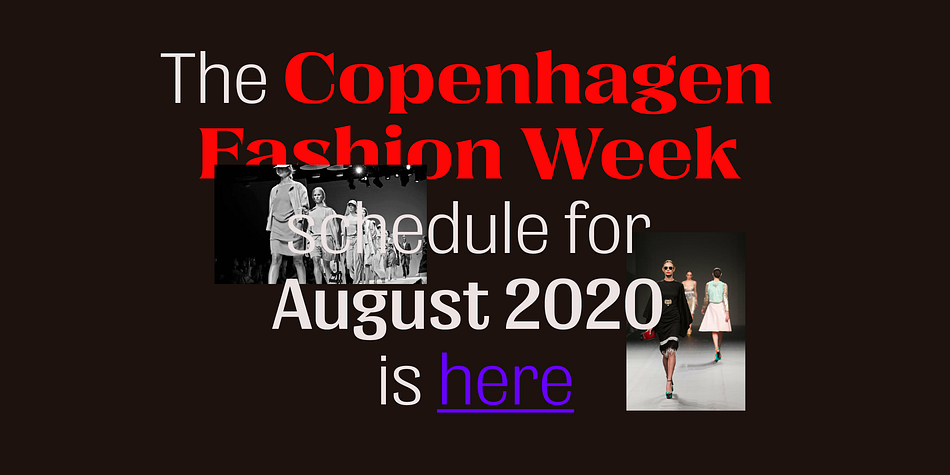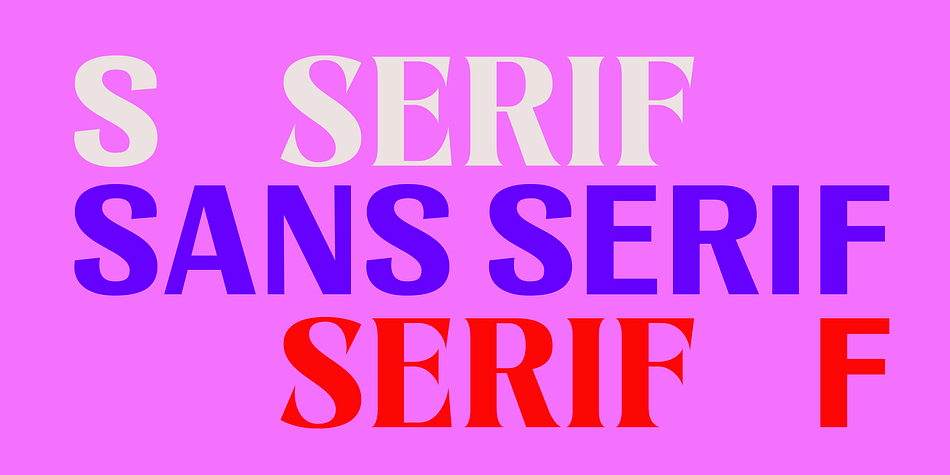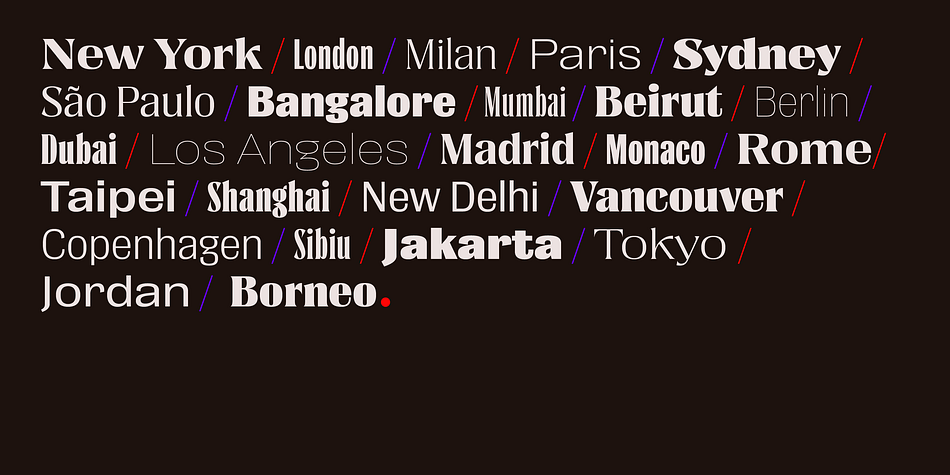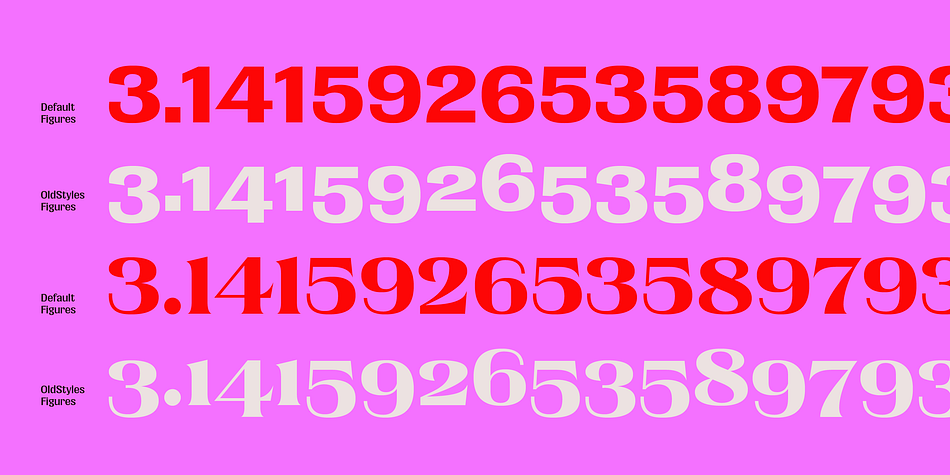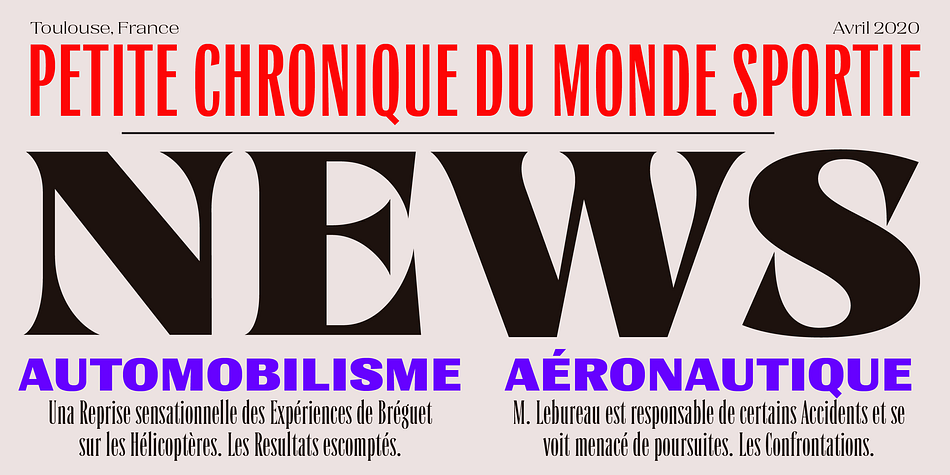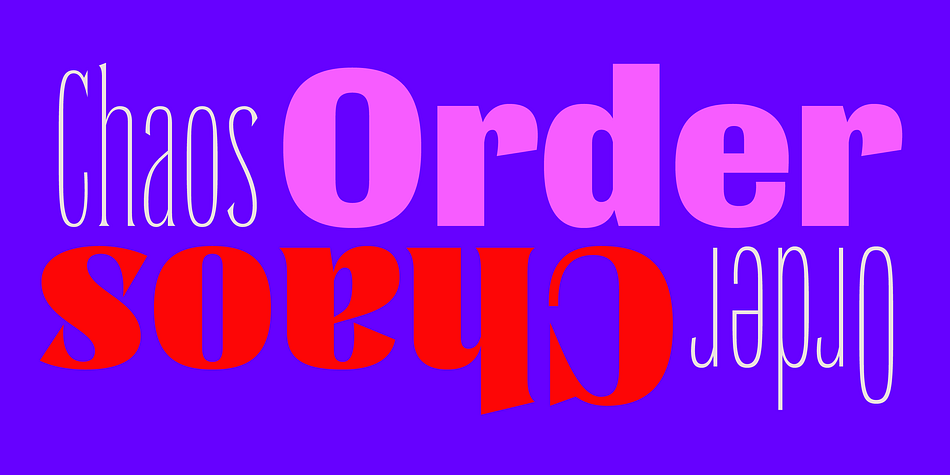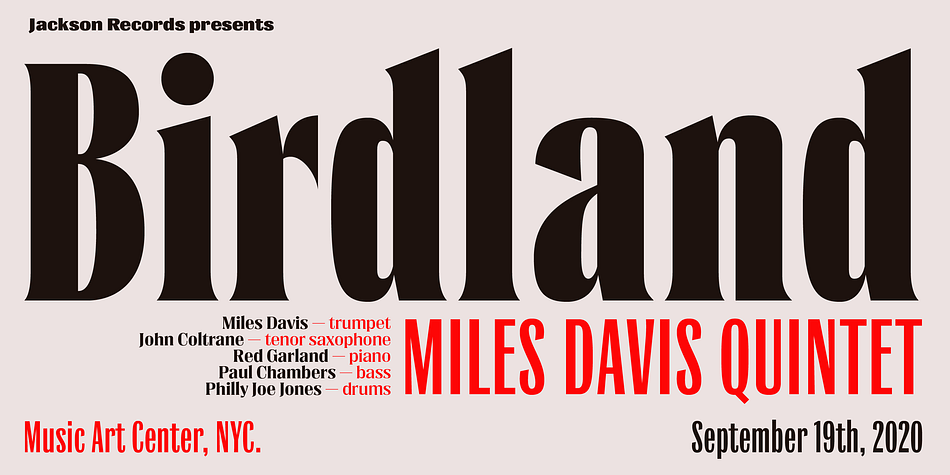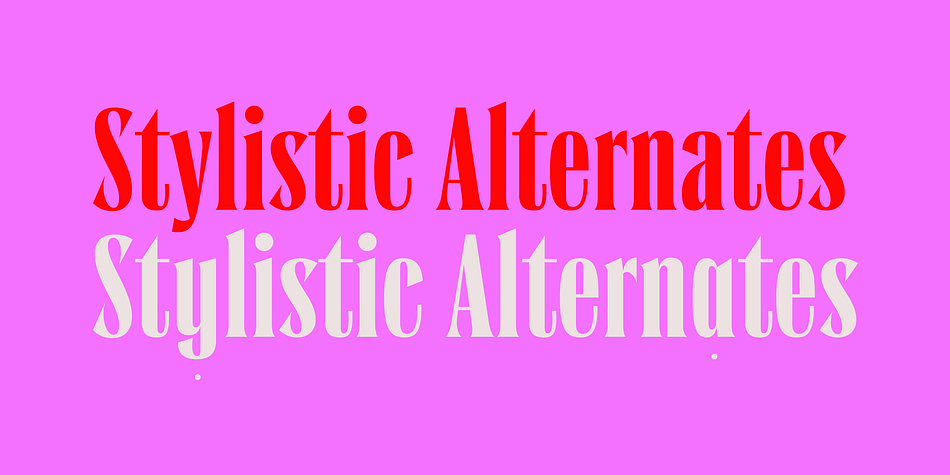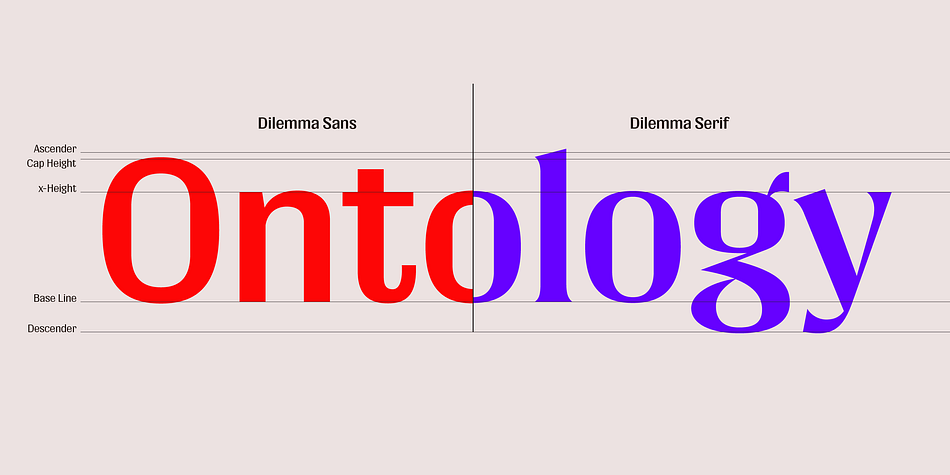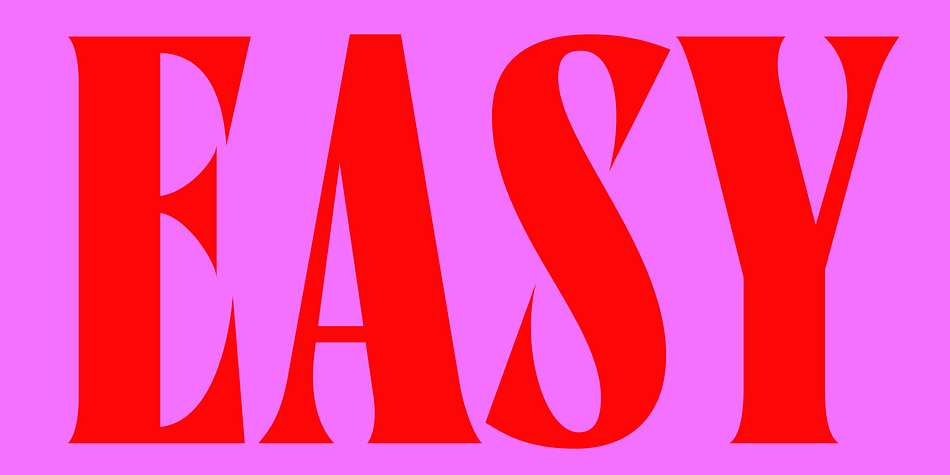
Designed by Alejandro Paul, Dilemma is a sans serif and serif font family. This typeface has forty-four styles and was published by Sudtipos.
Dilemma is a sans/sans serif type system with 42 styles; it is inspired by the anonymous Polyphème, Cyclopéen and Extra Condensé designs from the early 1900s at the Peignot Fonderie.
From these initial points of reference, Sudtipos went further and reimagined these projects for an actual use by blending them into a unique and complex type system. Dilemma is defined as ‘a situation in which a difficult choice has to be made between two or more alternatives, especially ones that are equally undesirable’ and that is exactly how we designed this font. We created a workhorse system where each style functioned well alone but would be more powerful when working as a team, pairing the sans styles with the serifs.
Dilemma comes in 3 different widths and 7 weights in both the sans and the serif, ranging from the more economical yet legible condensed styles, to the opulent bold and expanded weights. We imagine Dilemma being used in a limitless array of graphic projects including identity systems, digital platforms, public spaces, editorial design and beyond.
Now the Dilemma is yours.